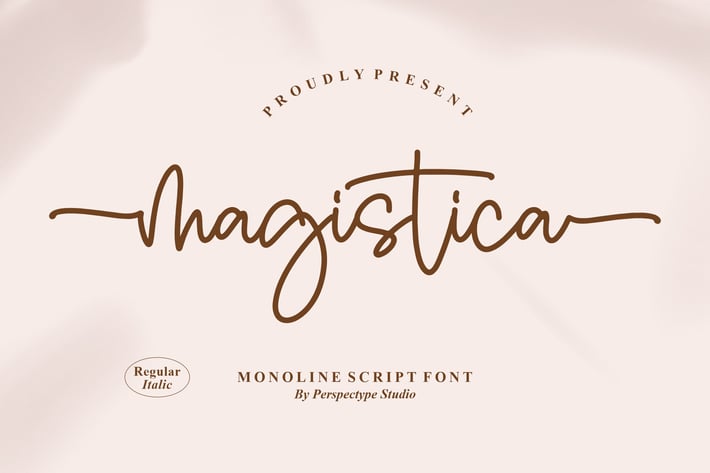
Magistica Monoline Script Font
Magistica Monoline is a clean, single-stroke script with rounded terminals, gentle bounce, and silky connections. Its monoline weight keeps layouts airy and modern, while long, flowing strokes bring a friendly, handwritten charm to logos, packaging, and social posts. Paired Regular & Italic styles let you build effortless type hierarchies for headlines, signatures, and captions. One line. Endless elegance.
+ Regular & Italic styles for flexible pairing
+ OpenType ligatures & alternates for natural handwriting flow
+ Smooth monoline curves with refined spacing/kerning
+ Swash options for expressive signatures and word endings
+ Multilingual support (Western European characters)
Draw your story with a single, beautiful line.